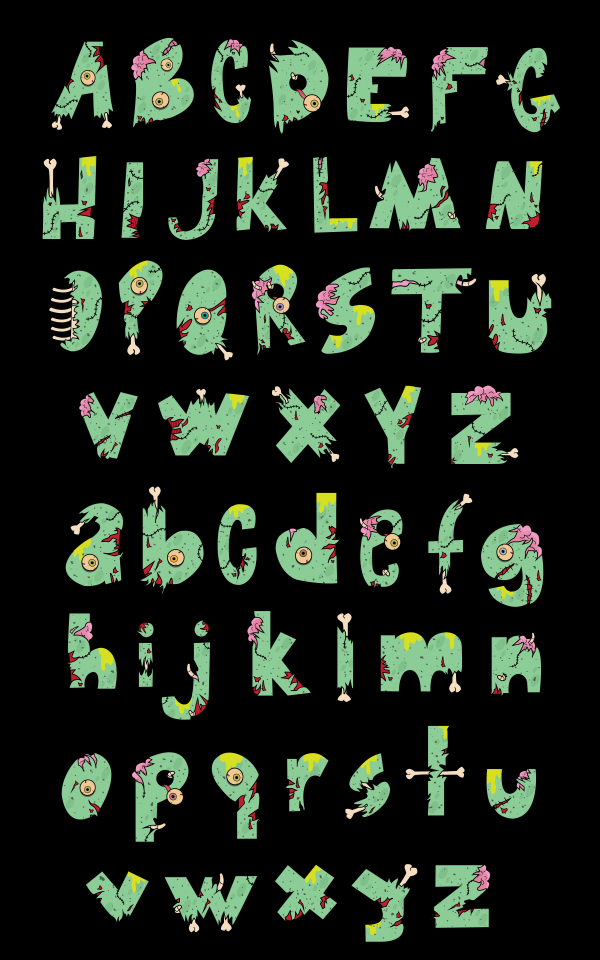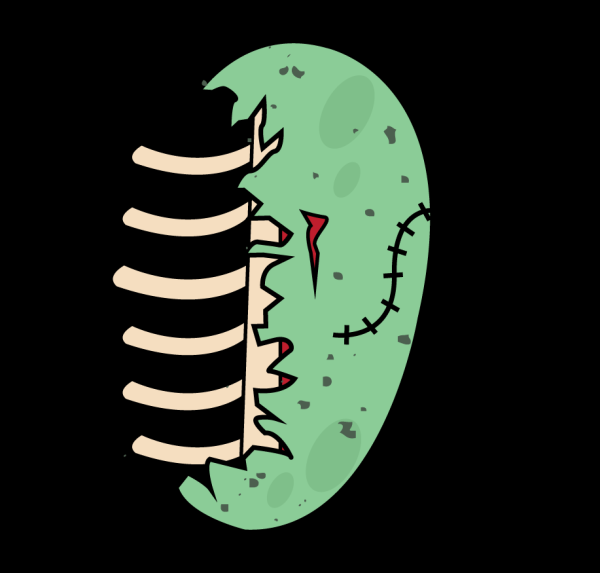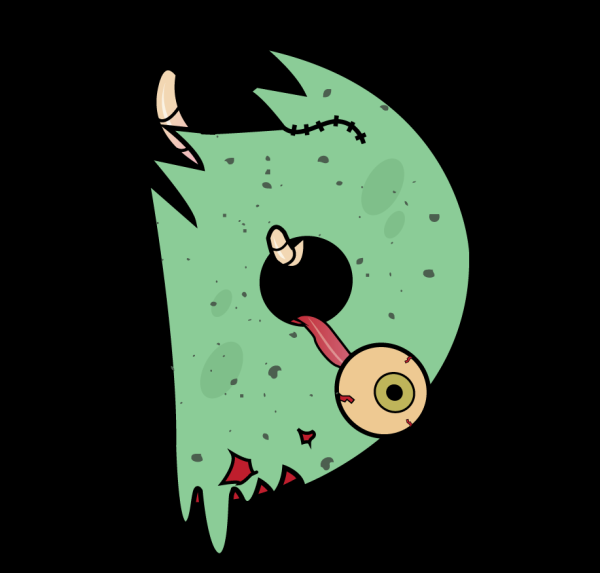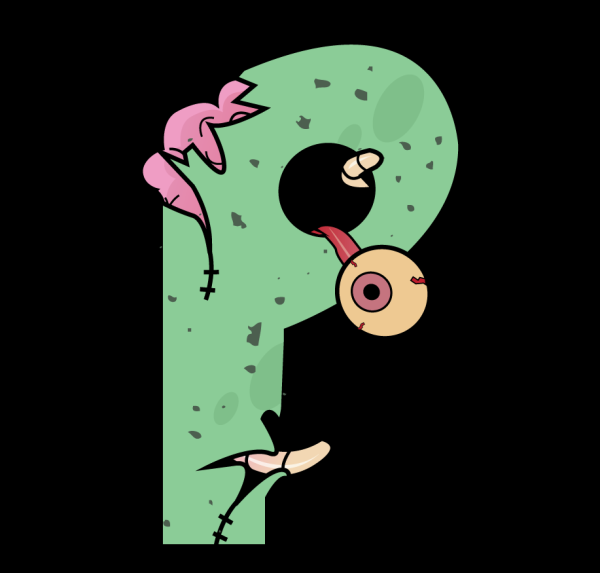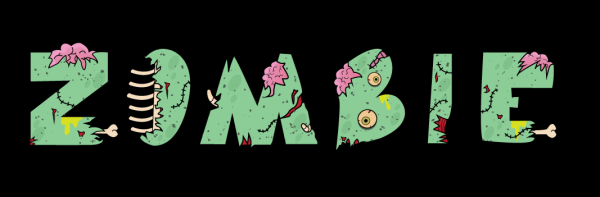
Night Of The Living Dead
Night Of The Living Dead is a fun typeface where the letters feel like they are coming to life. Each letter has a unique look, from brains coming out to eyeballs falling off.